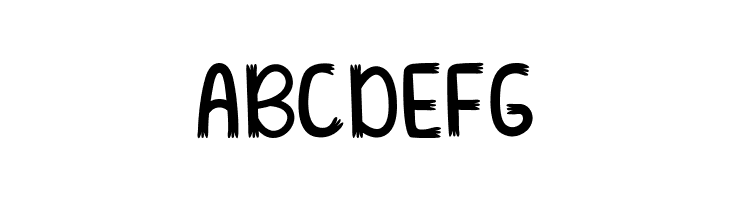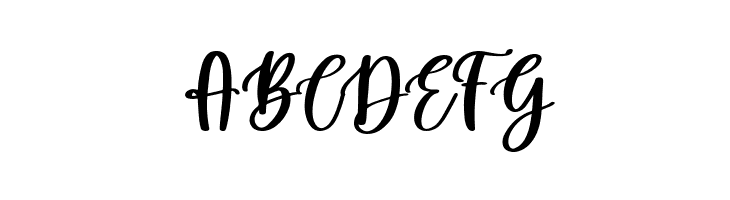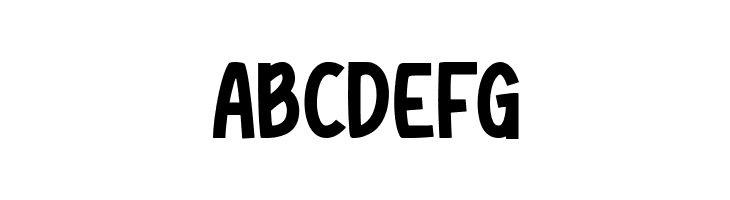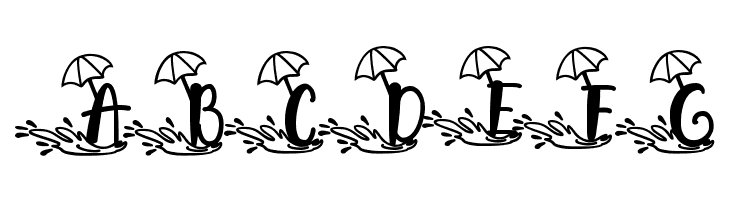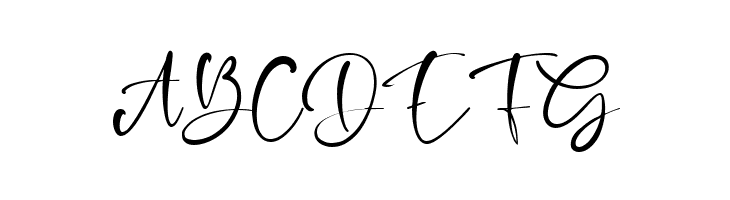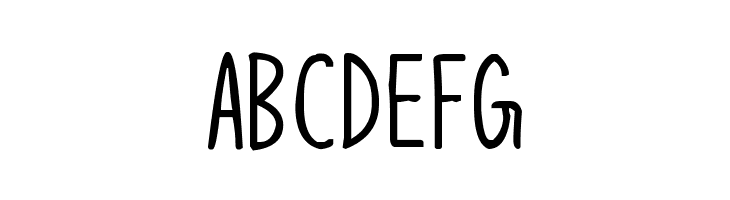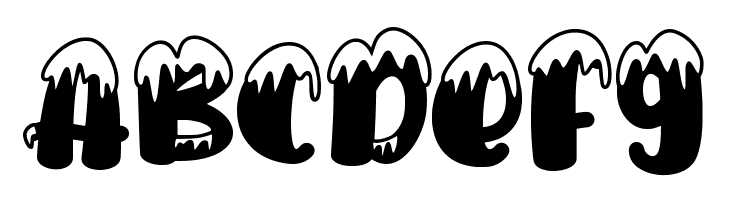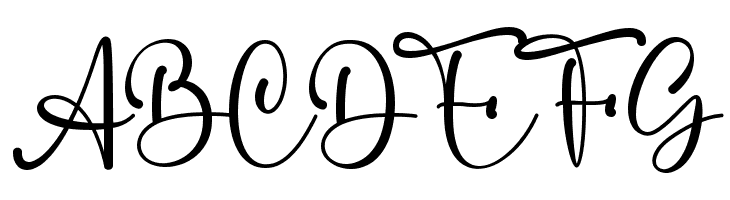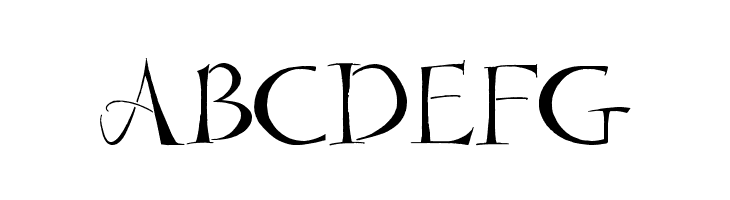
• Hello Baby Karl Script
A playful and elegant script font with flowing, cursive letters.
• HELLO CROCODILO
A playful, jagged font with a hand-drawn, crocodile scale-like texture.
• Hello Dreamer
A playful, hand-drawn font with tall, narrow letters and a whimsical style.
• Hello Paradise
A playful, bold, and hand-drawn style font with a whimsical touch.
• Hello Sannie
A playful and expressive handwritten font with dynamic cursive letterforms.
• Hello Santa
A playful, cursive font with a whimsical and elegant style.
• Hello Sark
An artistic and elegant font with unique flair and smooth curves.
• Hello Snow - Personal use
A bold, snow-capped decorative font perfect for festive designs.
• Hello Snowflake
A playful, flowing script font with elegant, cursive letterforms.
• Hello Summer - Personal Use
A playful, summer-themed font with beach motifs and a casual, handwritten style.